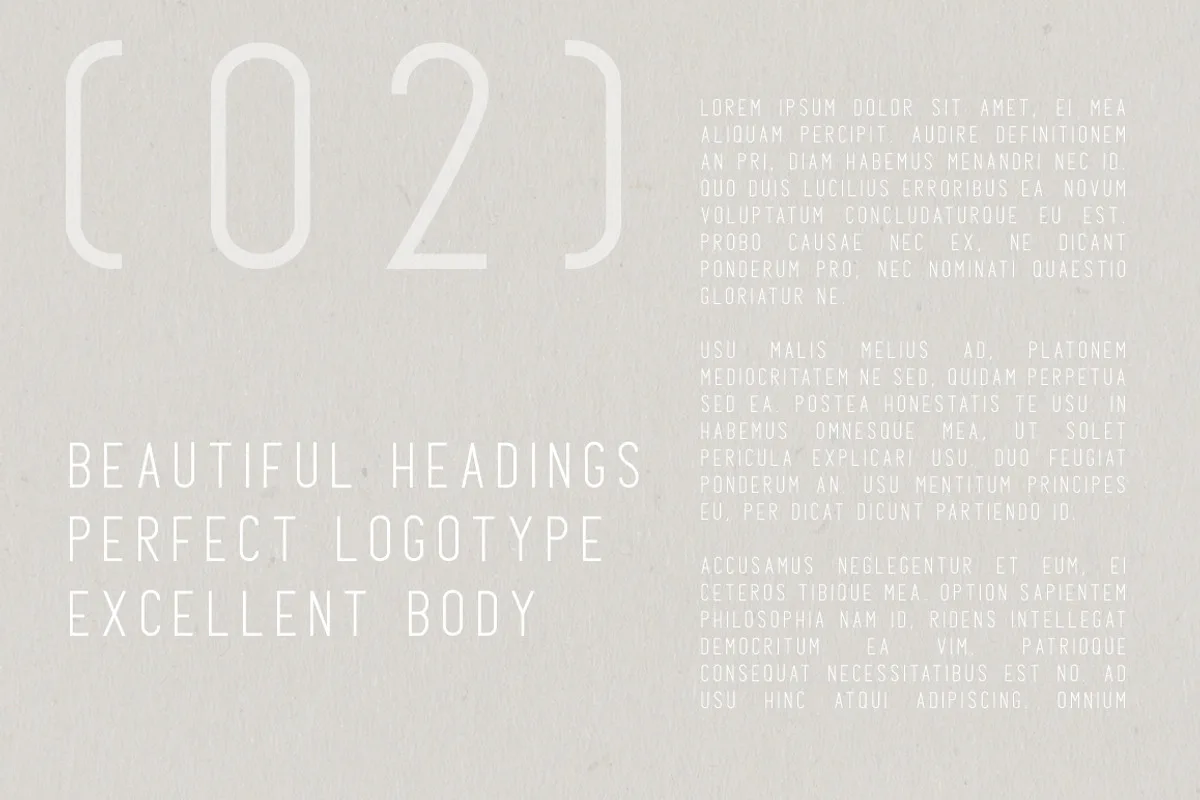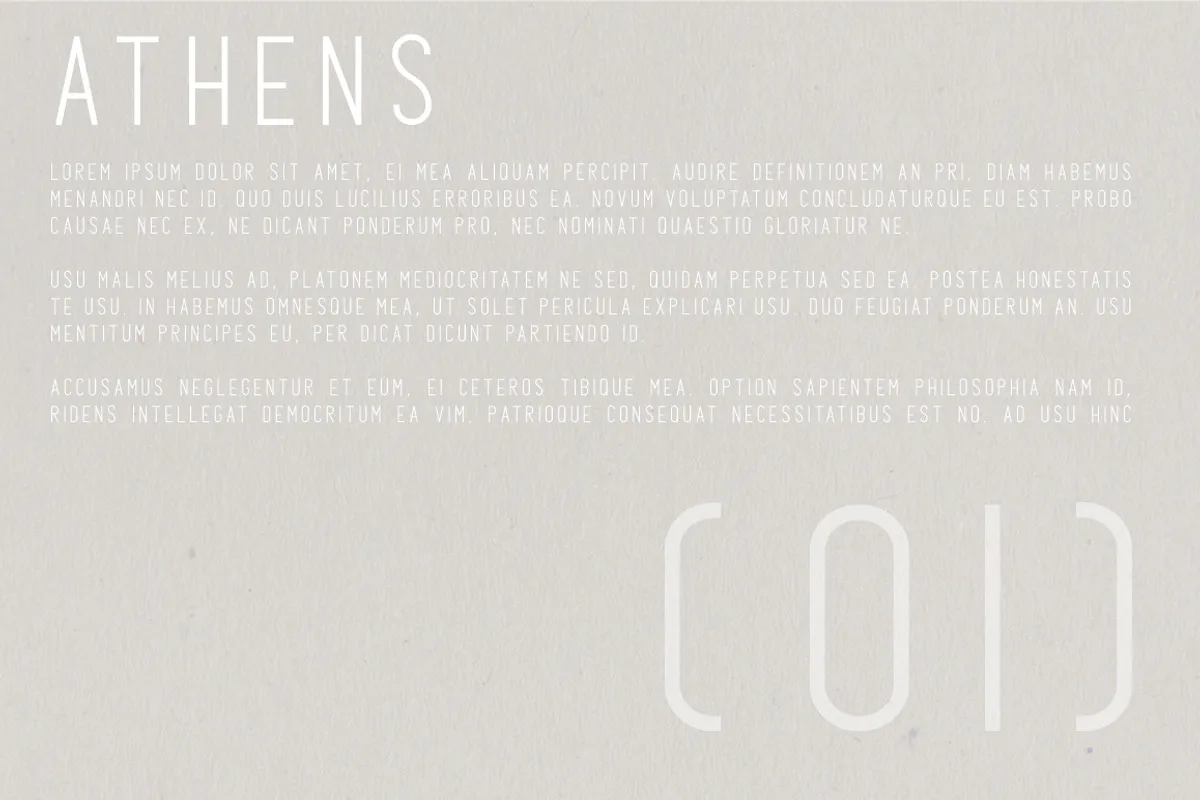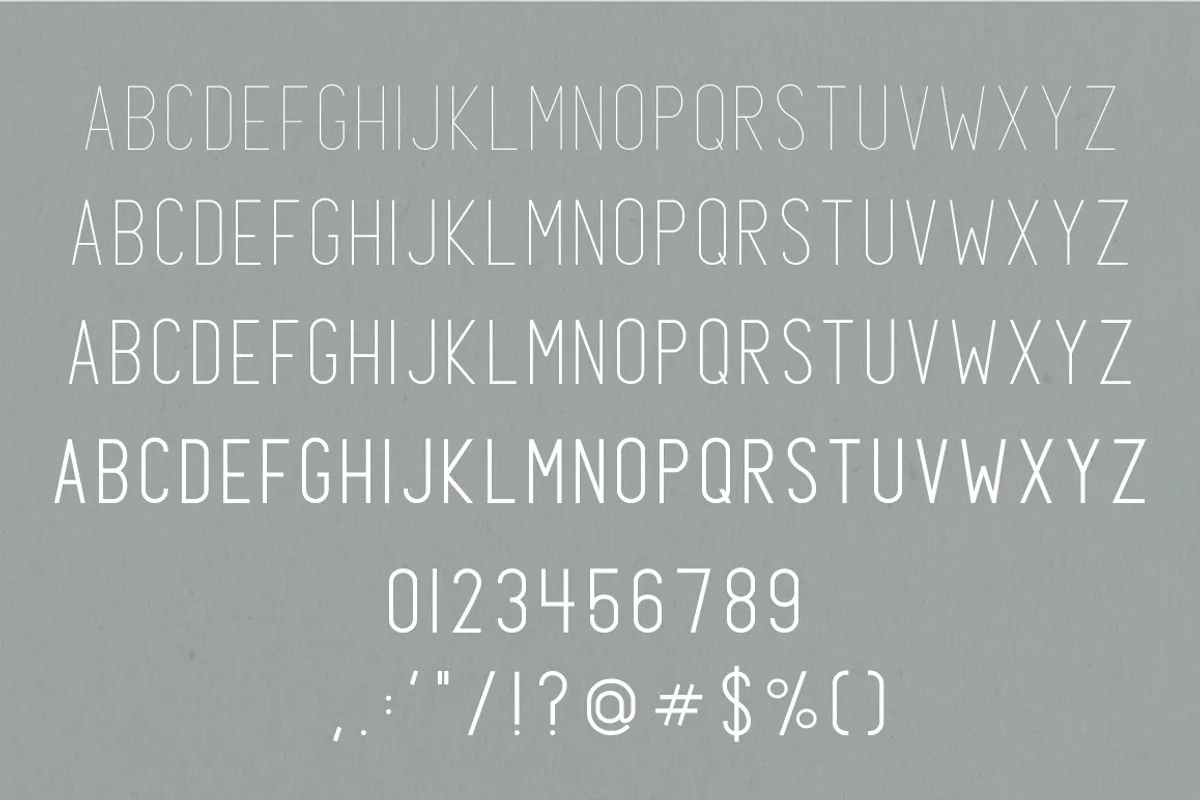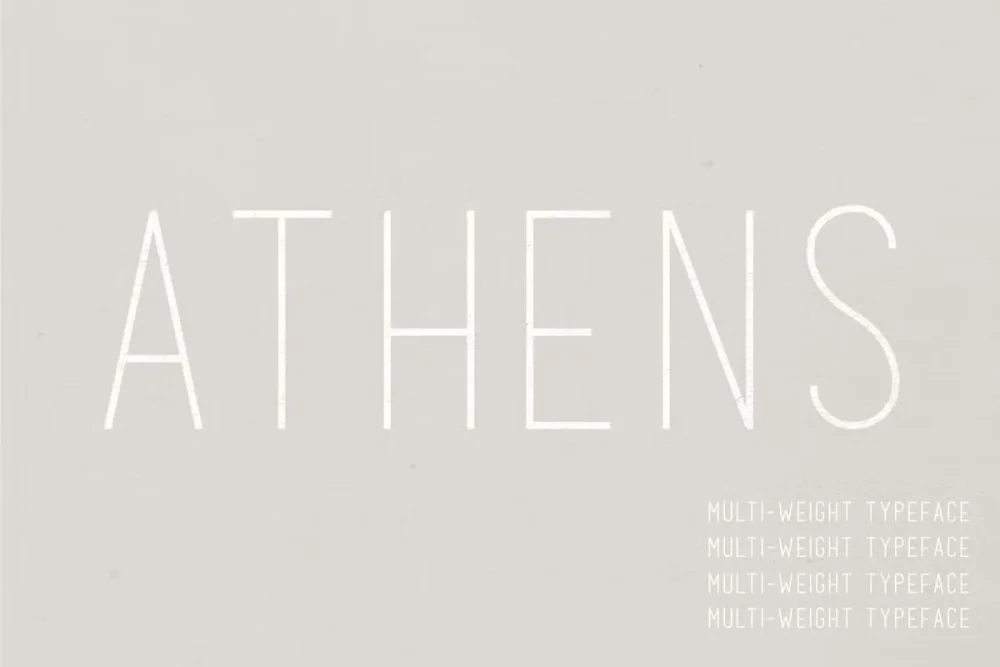
Athens is a minimalistic, timeless, and stunning all caps sans serif font that looks beautiful in layouts, headers, web, and many other contexts! With four different weights, it’s perfect for magazine layouts, invitations or any other project you’re working on!
- capital letters
- numbers & basic punctuation
- four weights
- non-English characters